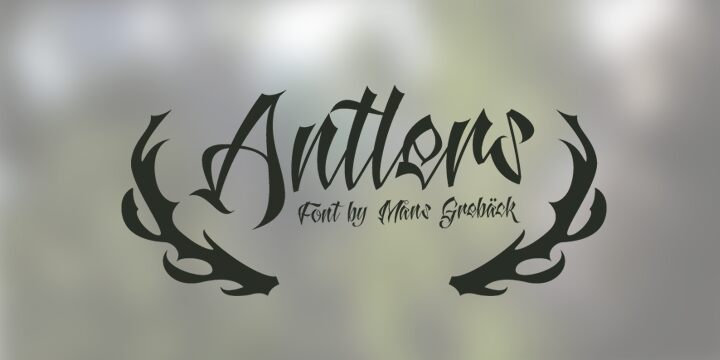
Antlers by Måns Grebäck is a free calligraphic font with a tall, theatrical silhouette. Broad black strokes narrow into hairlines, and the letters sweep into long loops and sharply pointed tips. The forms feel elegant but deliberately exaggerated, with flourishes that reach across neighboring letters.
Luxury fragrance packaging is an apt setting for this dramatic lettering, and its ornate profile also suits fashion editorials, album covers, and invitations. Across these uses, the combination of sweeping curves and blade-like details turns a name or title into an ornamental image.